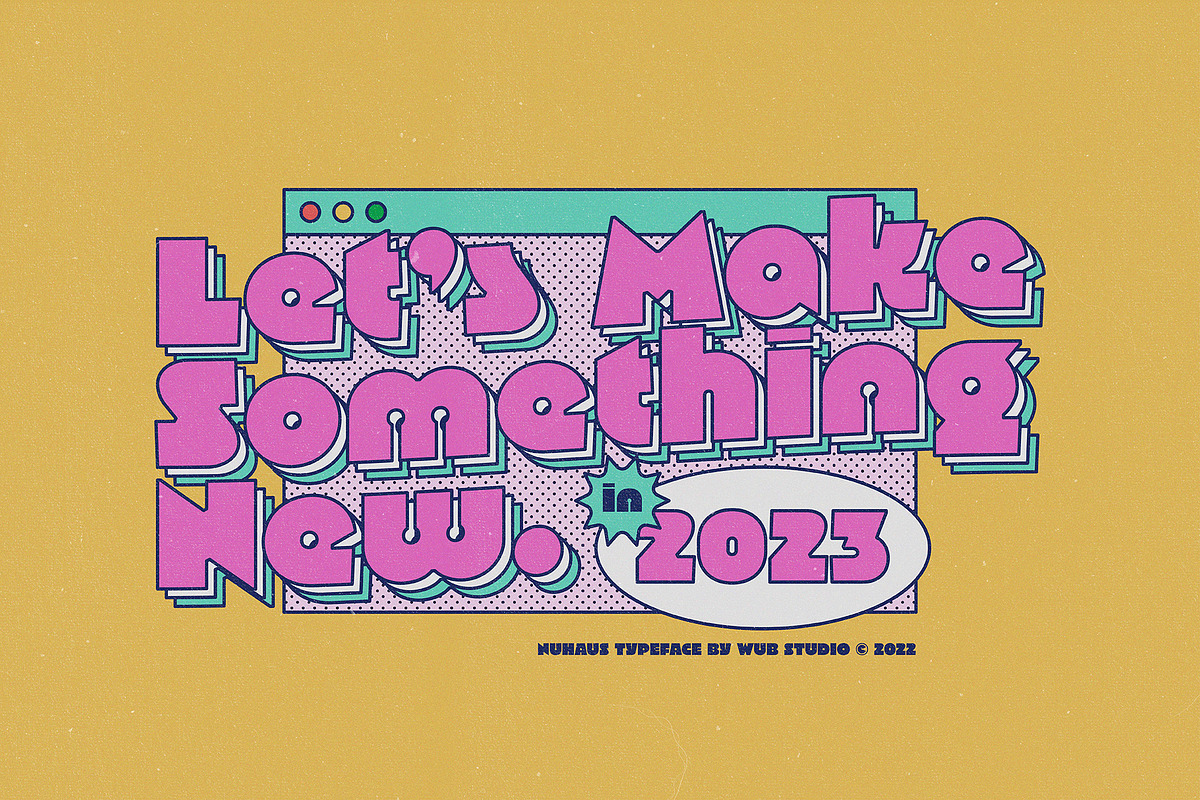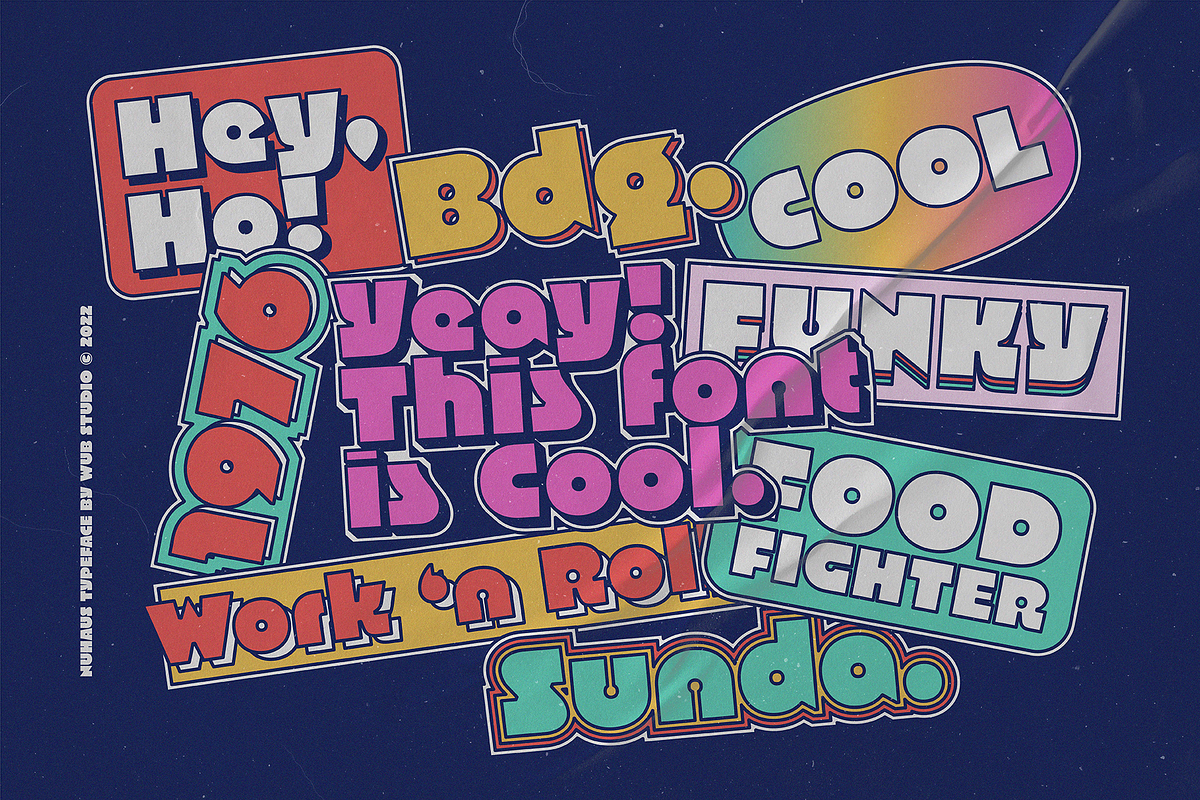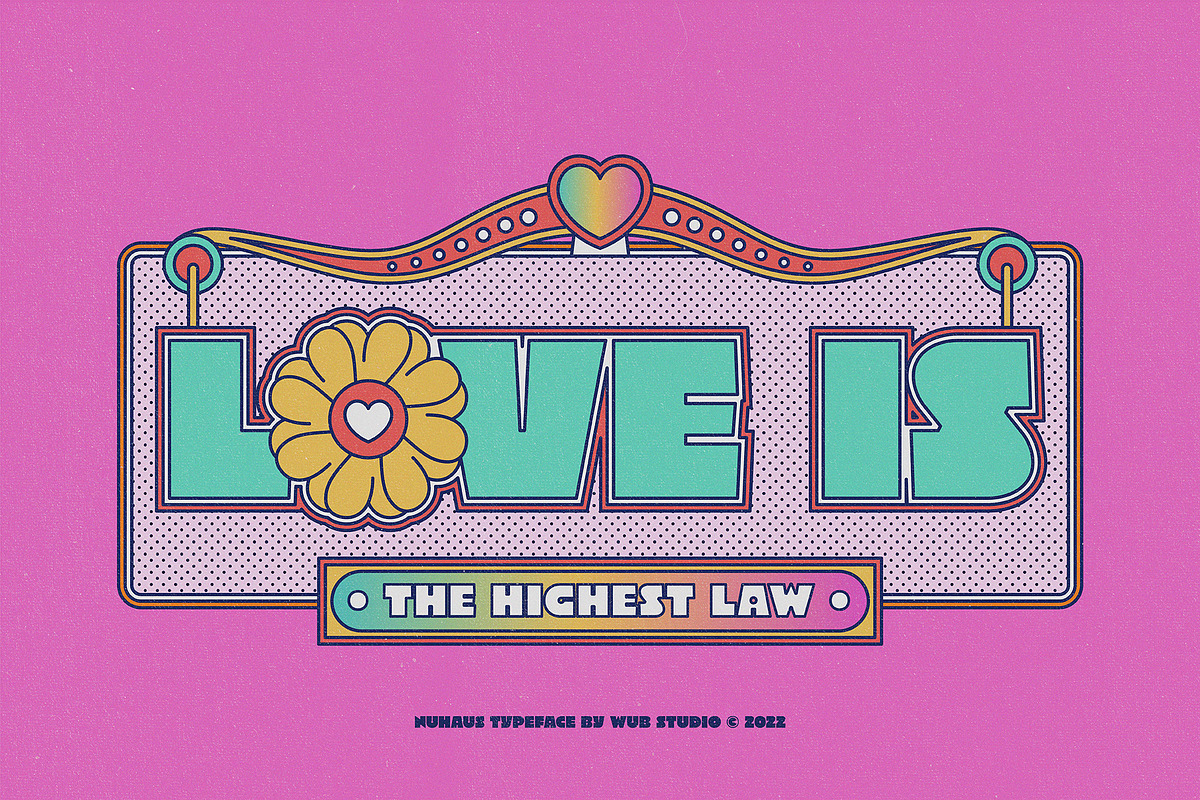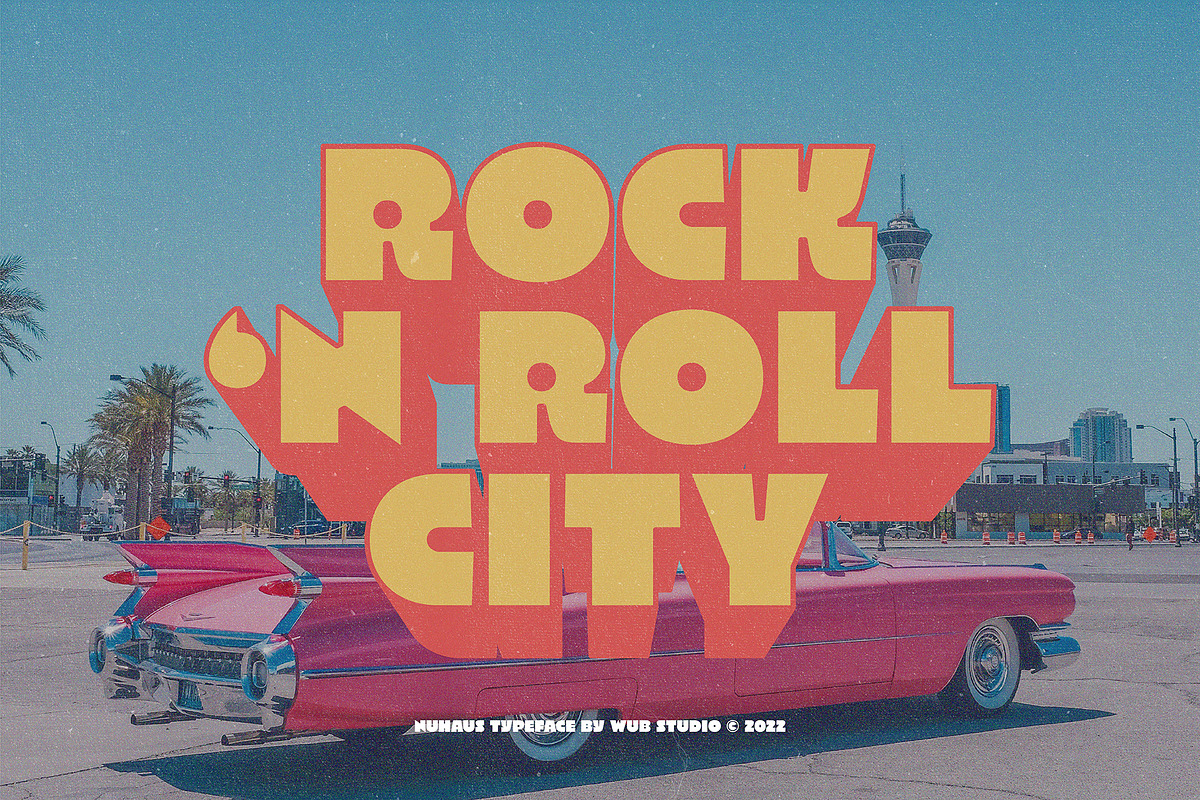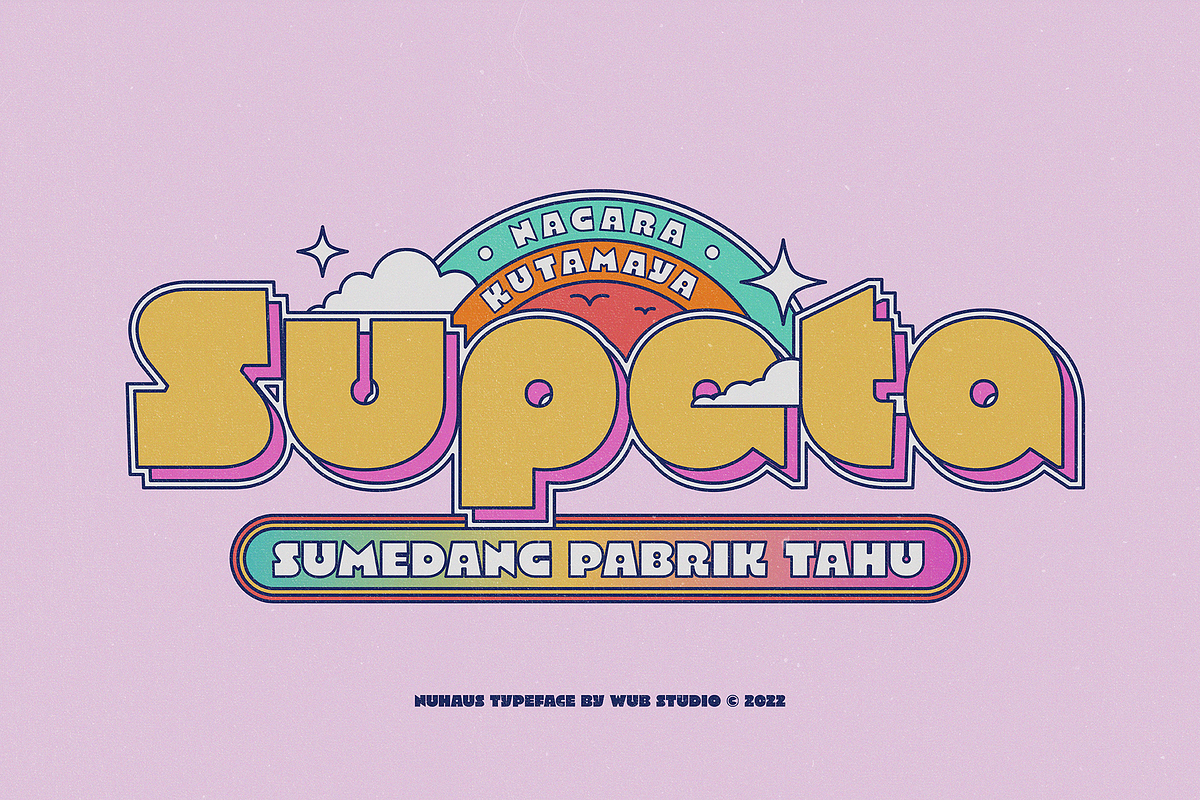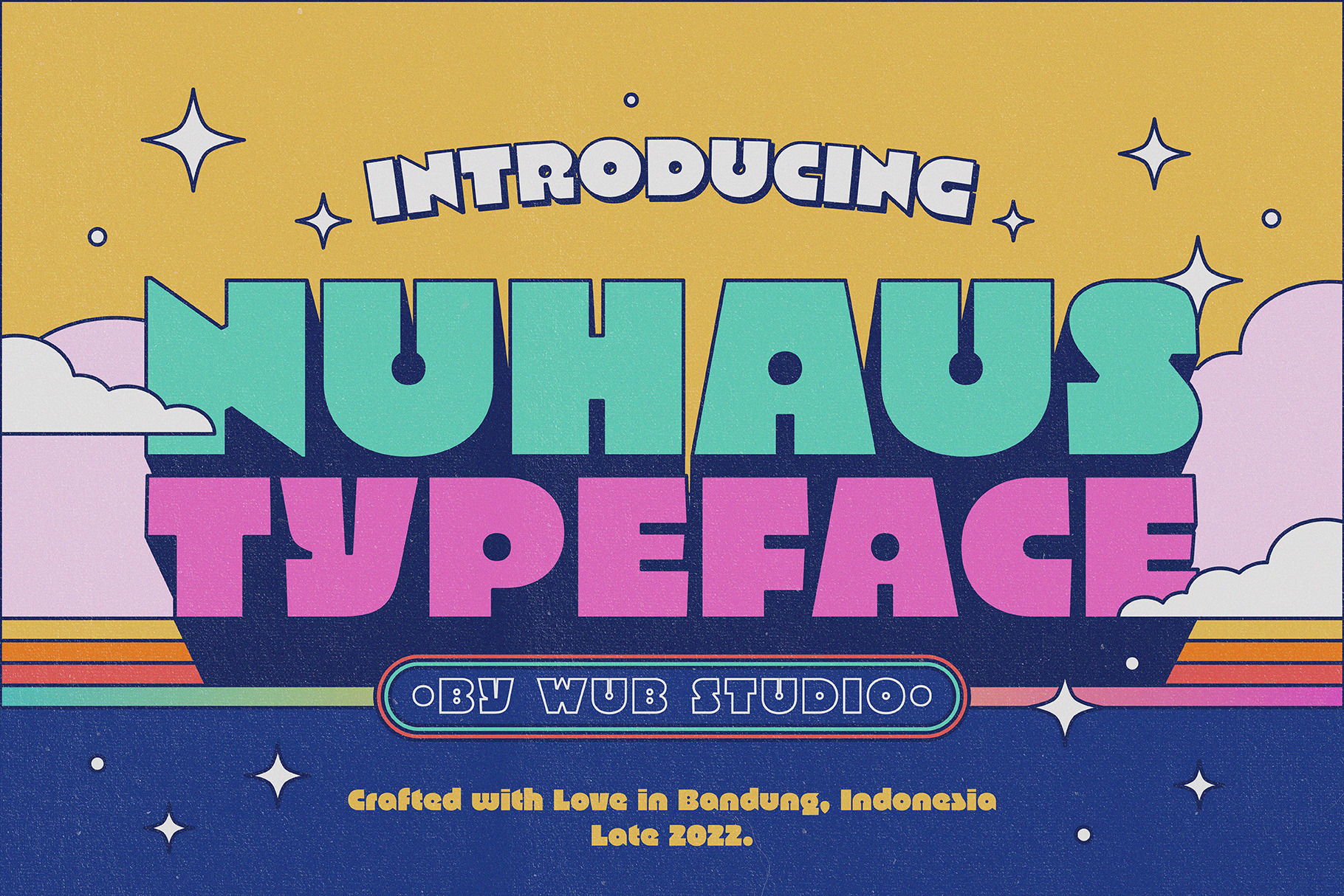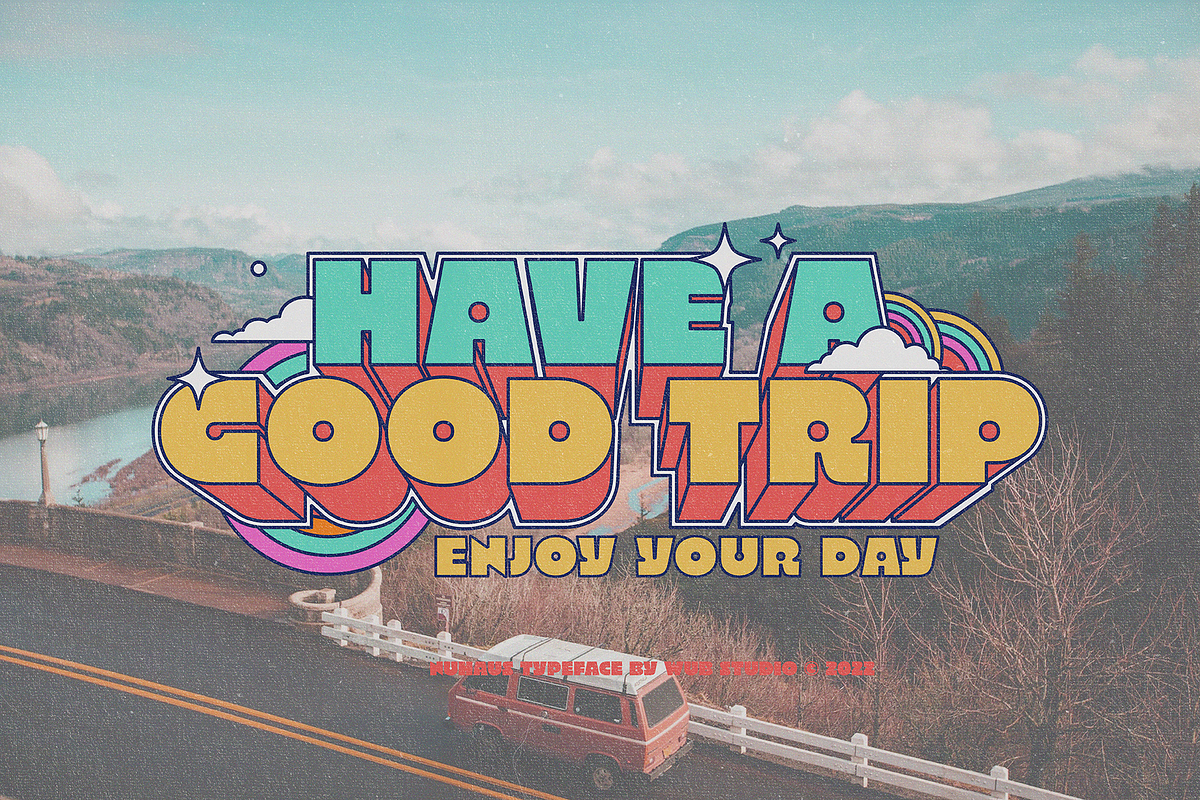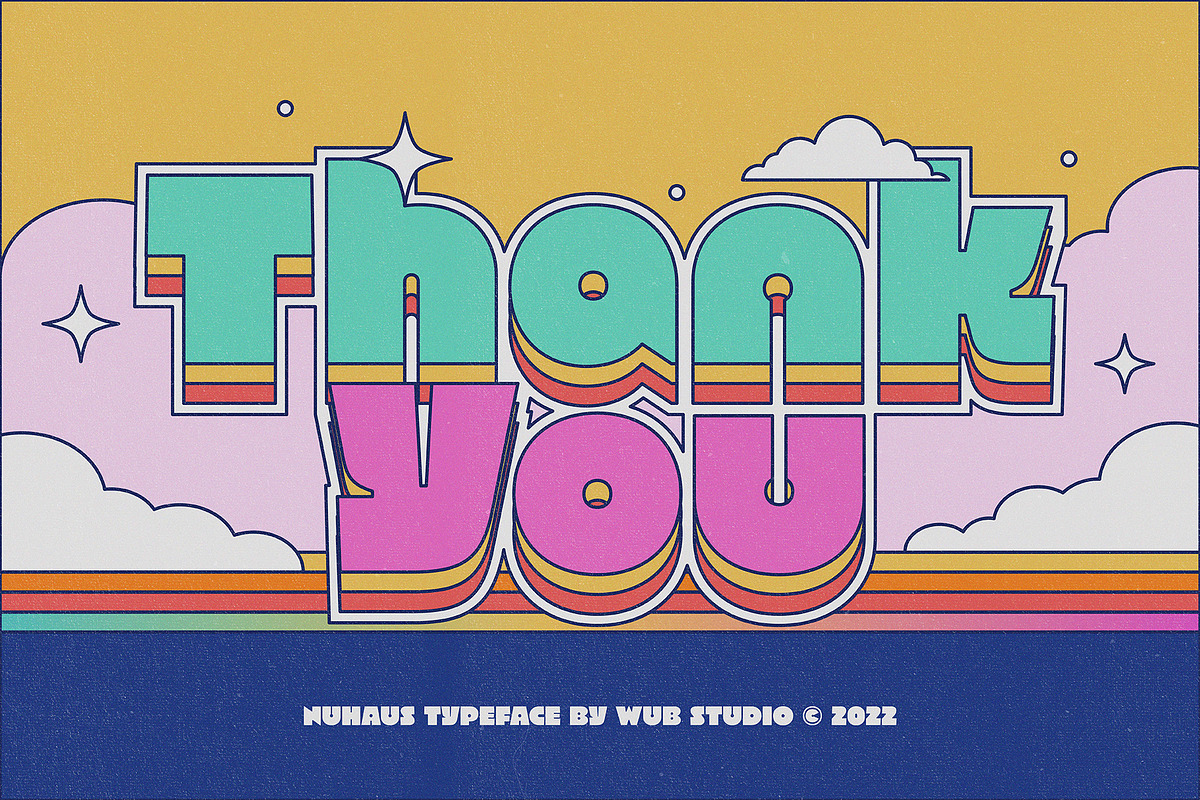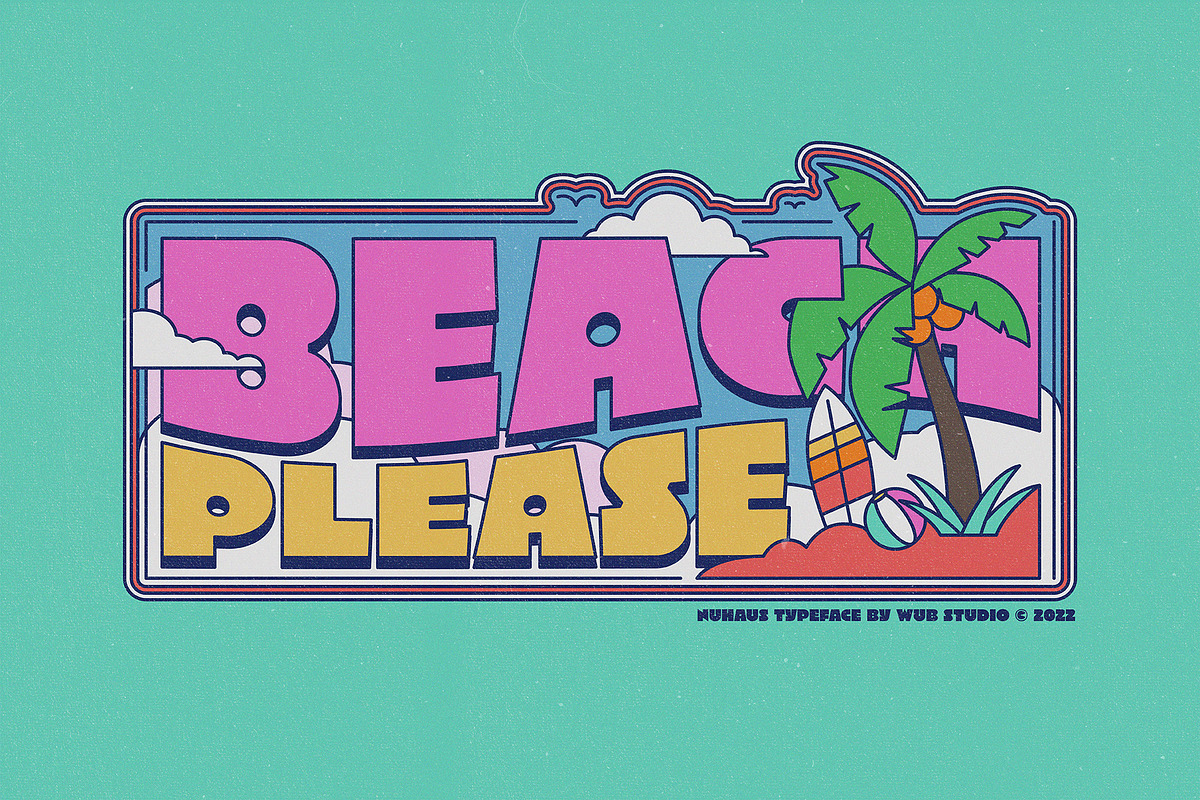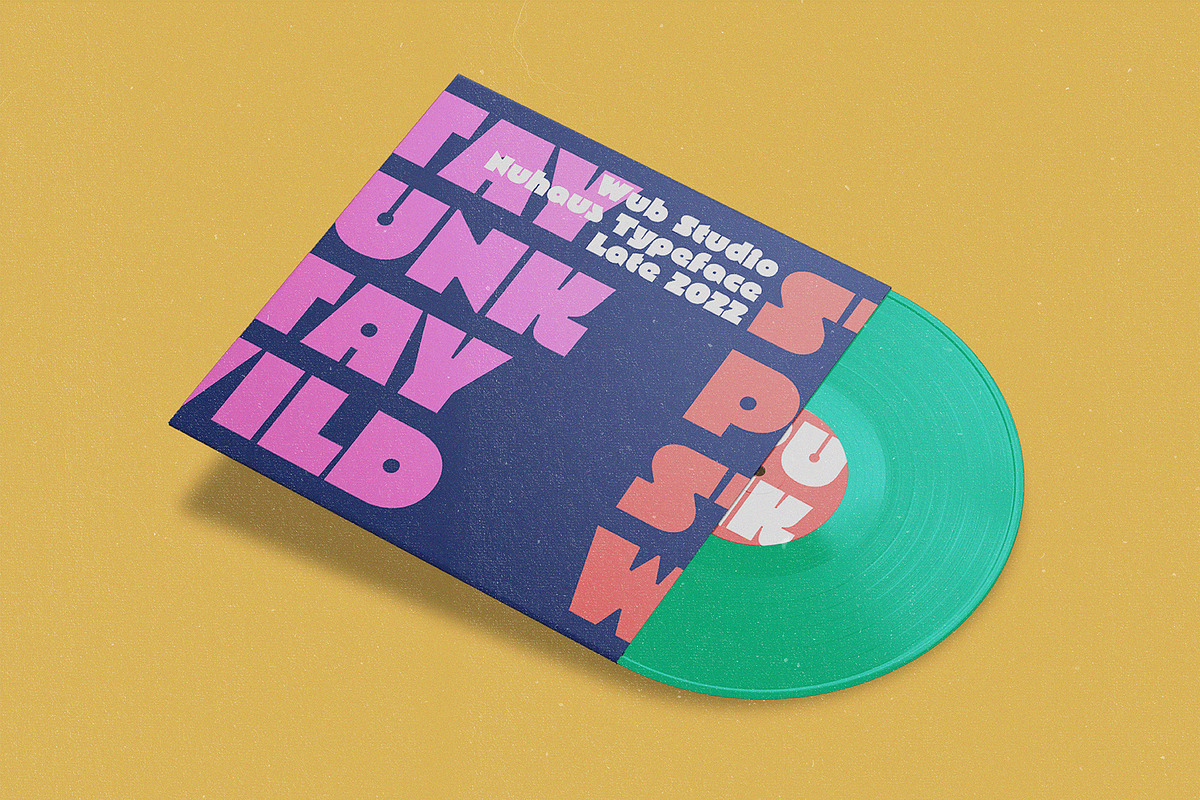
Starting from a desire to make a 70s Retro themed font, I surfed the Internet and some books. Finally I got the name of a Font Designer, namely Ed Benguiat. And, yes. I really fell in love with his Bauhaus. The character looks very strong, bold, and sturdy. But still has a very high artistic value, for me.
From there, Nuhaus was created. With the hope, Nuhaus will be another choice for anyone who wants to make a Modern Retro, Neo-Retro and Vintage design.